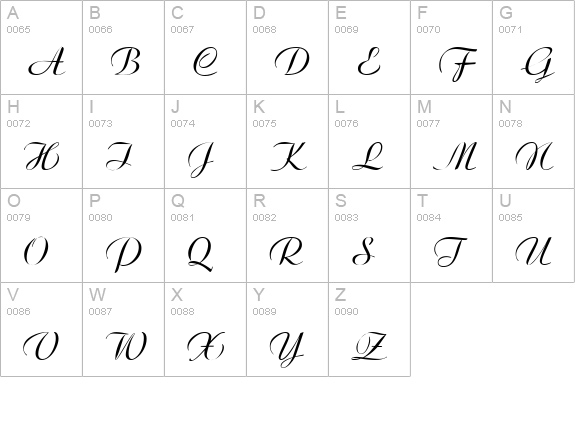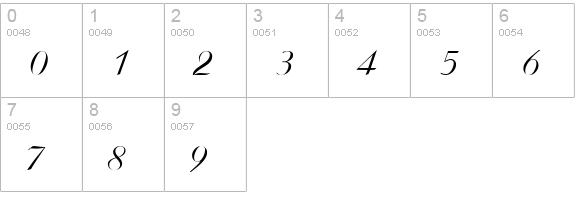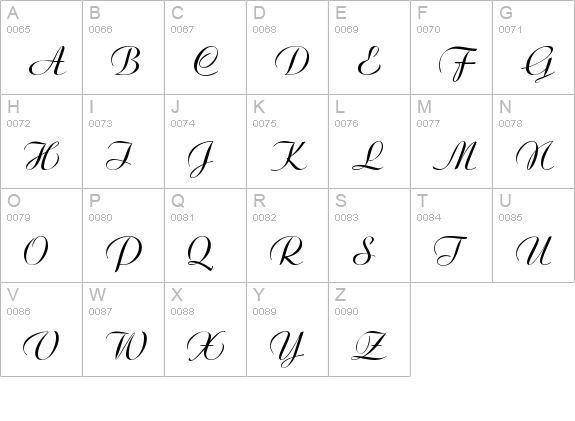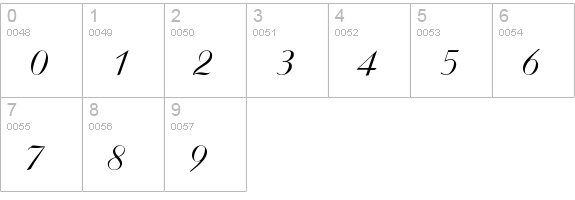
AdriaDB Normal is the standard, neutral variant in the AdriaDB typeface family \xE2\x80\x94 well suited to general body text, paragraphs, and standard typographic work.
AdriaDB Normal font is a versatile and elegant typeface that is perfect for both digital and print design projects. This font features clean lines and a modern aesthetic that make it suitable for a wide range of applications, from branding to editorial design. With its balanced proportions and legible letterforms, AdriaDB Normal font is ideal for creating professional and polished designs. The best part? AdriaDB Normal font is completely free to download at FontsMarket.com. Whether you're a designer looking to add a new font to your collection or a business owner in need of a fresh look for your branding, AdriaDB Normal font is a fantastic choice. Don't miss out on this opportunity to enhance your projects with this high-quality and stylish font. Download AdriaDB Normal today and take your designs to the next level!